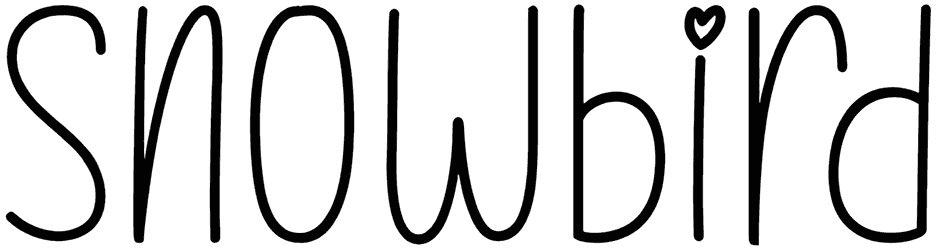
Snowbird Font
Snowbird may be just the touch of originality and soul your project needs to stand out. This script font looks so fun and naughty that it invites the eye to follow and join in the fun.
This love font needs to take itself more seriously and encourage us to have some fun with written words. So use its carefree energy for your intimate and informal projects and let the Snowbird’s soulful appeal guide you in designing posters, packaging, and apparel.